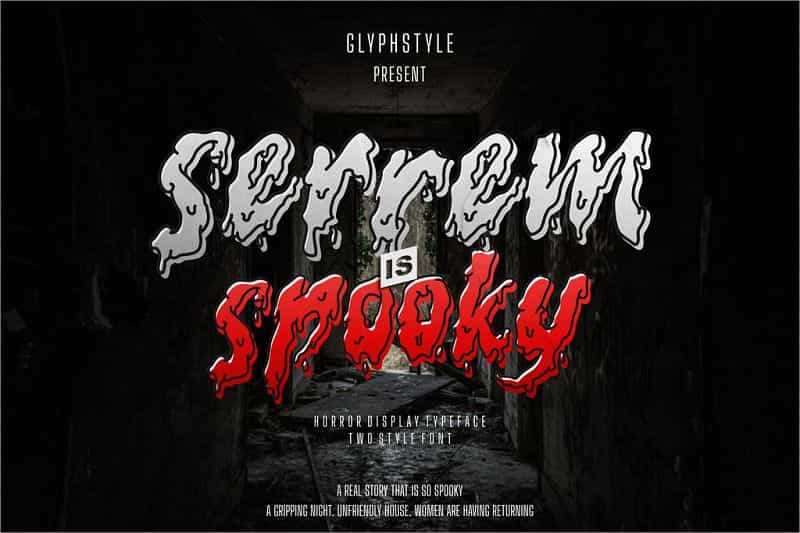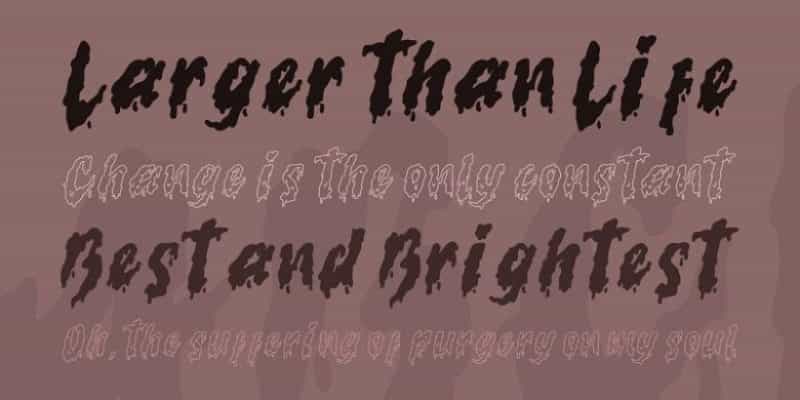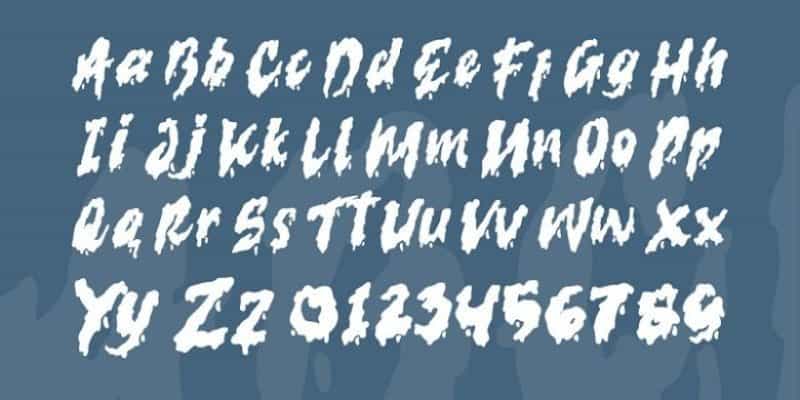
Serrem is a display font that belongs to the horrors’ theme. Serrem with a terrible form of blood droplets. there are only two styles outline and solid, which are perfect for Halloween or any horror related projects. This Font can be applied to film covers, branding and logos, social media posts and advertisements, business cards, clothing products, quotes, magazine covers, labels, photography, watermarks, invitations, stationery, and any project that involves horror-themed writing.